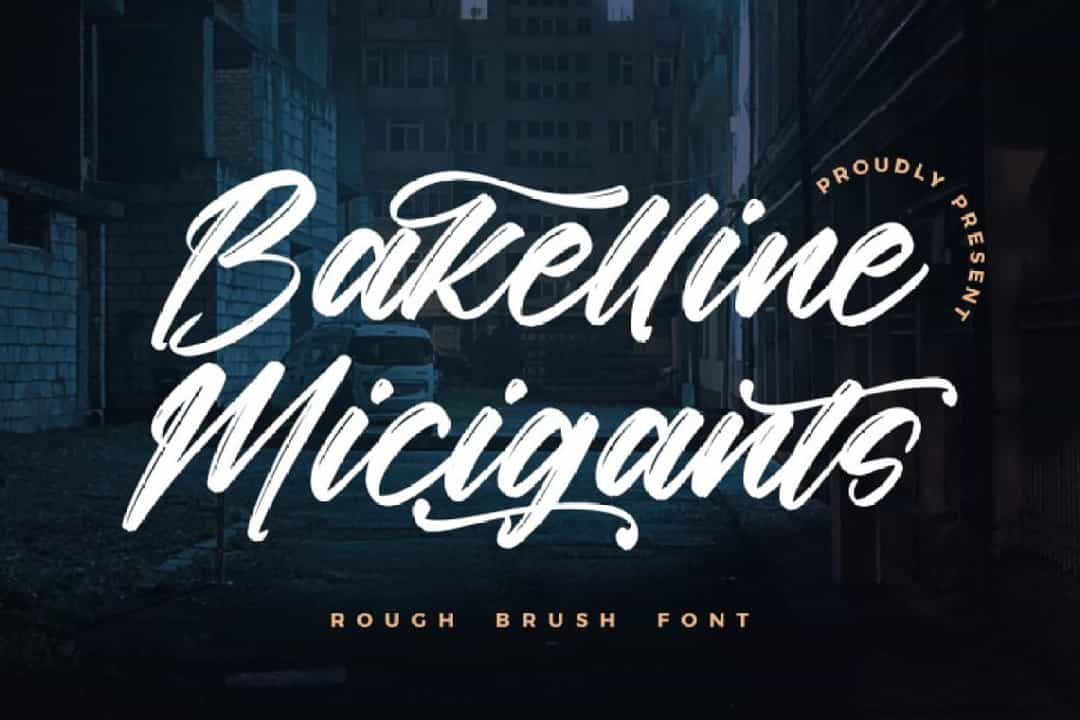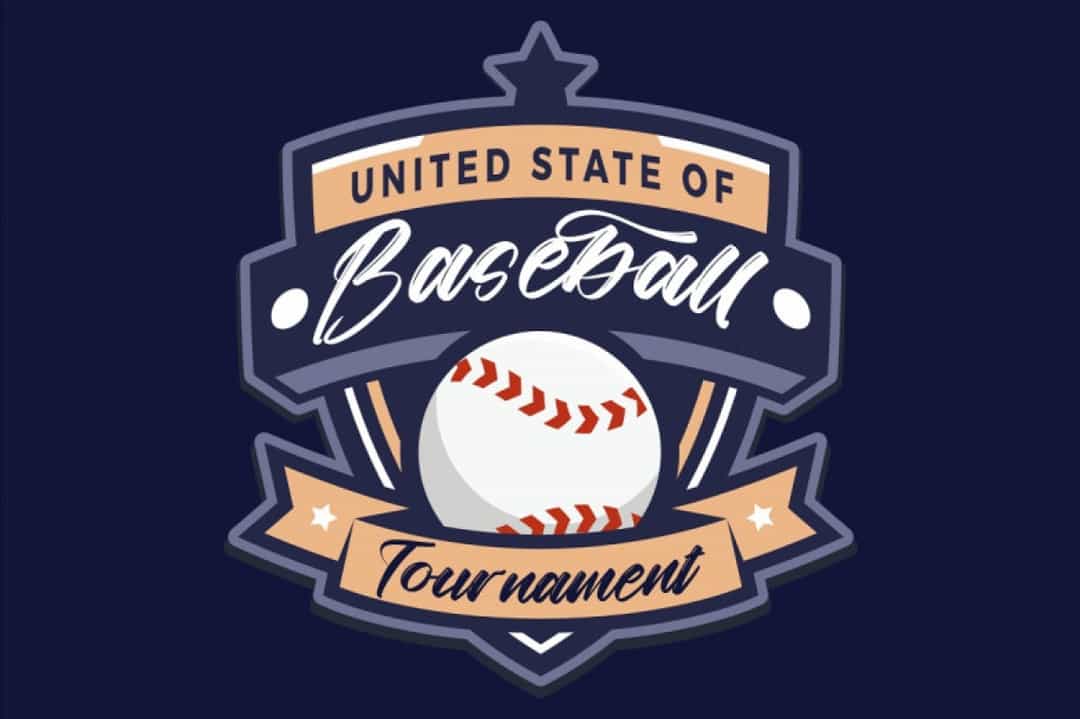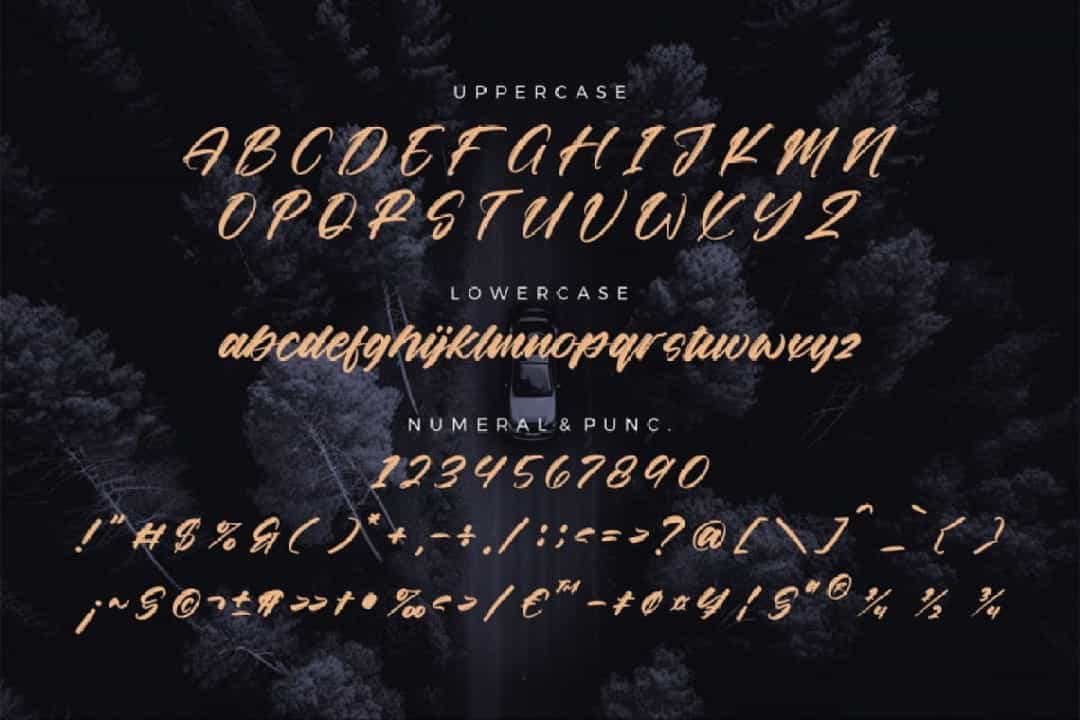
Perspectype Studio’s Bakelline Micigants rough Brush Font can be used for all sorts of projects such as branding, logos design, homeware packaging, packaging of products mugs posters quotes bags shopping t-shirts book covers etc.